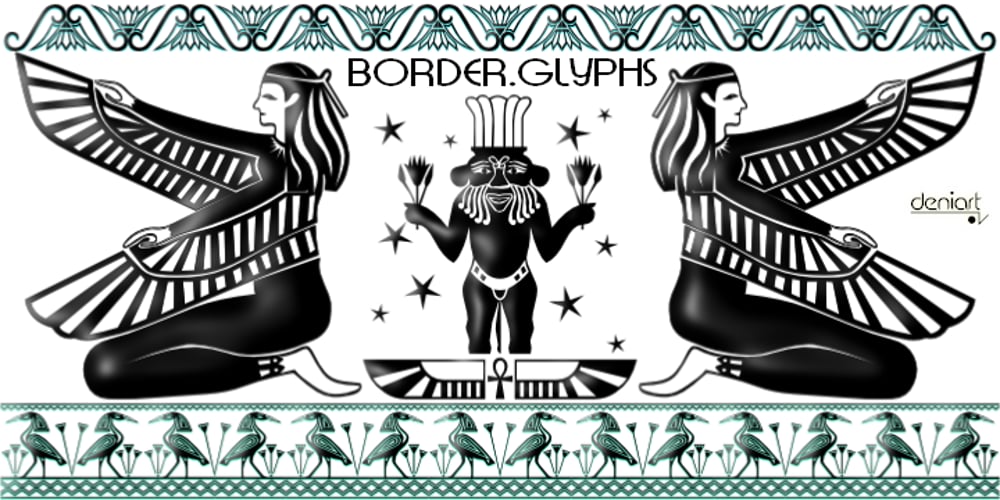
Border Glyphs
Border Glyphs font
Border Glyphs Font Family was designed by Denise Koehler and published by Deniart Systems. Border Glyphs contains 1 styles and family package options. BorderGlyphs features an array of border elements inpired by our very own Egyptian Hieroglyphs font collections. These historic yet modern symbols have stood the test of time – they can blend into ancient as well as the most vanguard of themes and will add elegance to your projects.